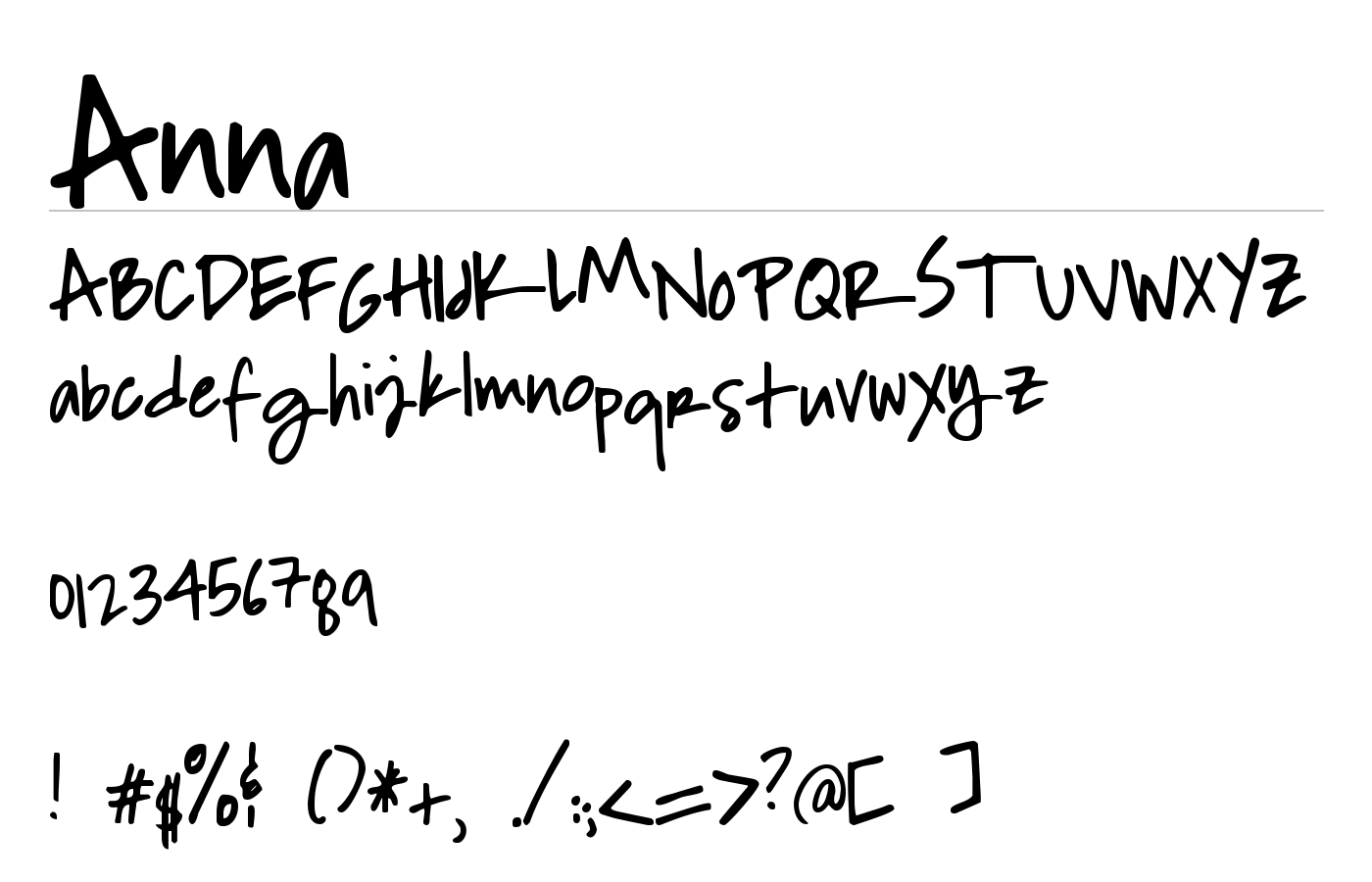
Anna Font is a casual, handwritten sans serif typeface with a playful and friendly vibe. Its irregular, slightly narrow letterforms and varying stroke widths give it an energetic and approachable feel, making it ideal for informal designs, creative projects, and branding that seeks a personal touch. This font works well for logos, posters, and any context where a warm, humanistic style is desired.
Anna Font